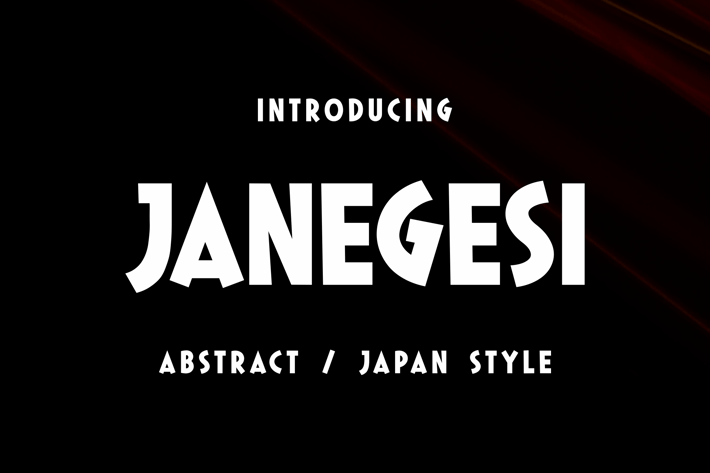
JANEGESI - Abstract / Japan Style Font
JANEGESI is a font that beautifully blends abstract aesthetics with the essence of Japanese style. With bold yet flowing strokes, it strikes the perfect balance between modernity and tradition. Its dynamic shapes and smooth curves create a striking visual appeal, making it an excellent choice for various design projects.
Ideal for eye-catching banners, action-packed film titles, serene parks, and relaxing spaces, JANEGESI is more than just a typeface—it’s a statement of art and culture.